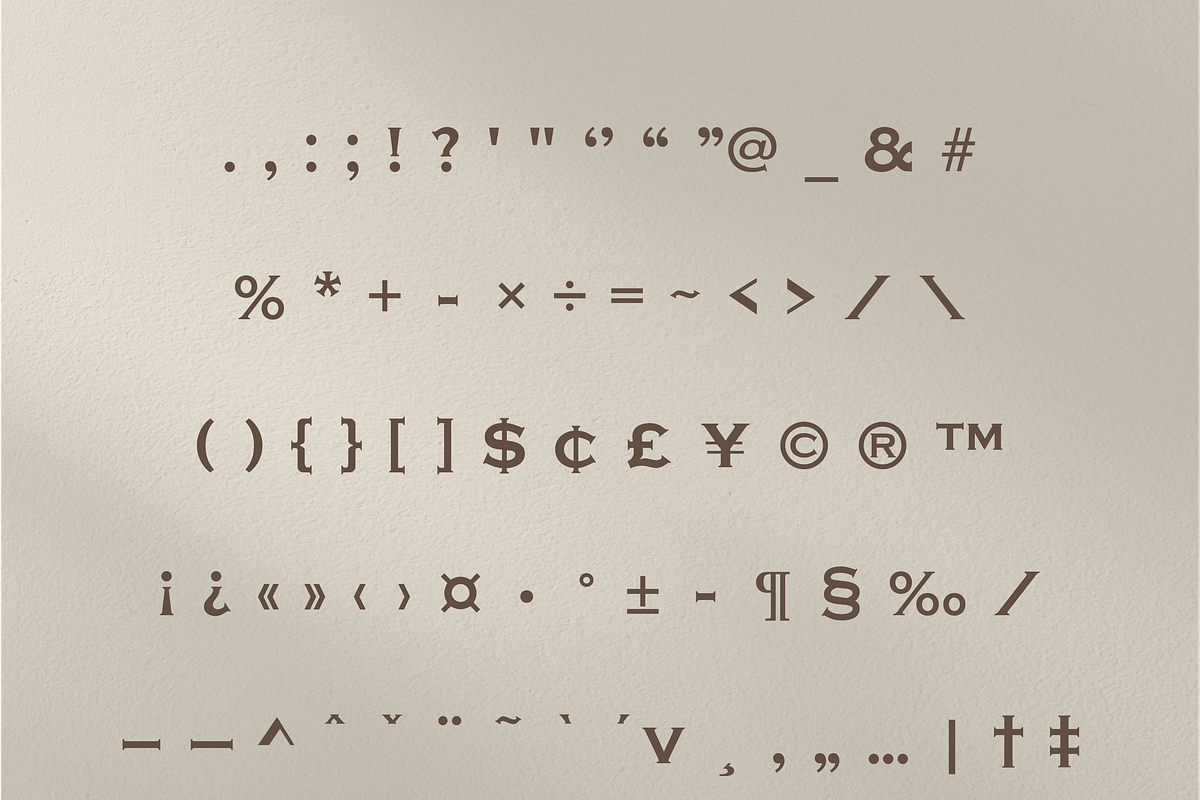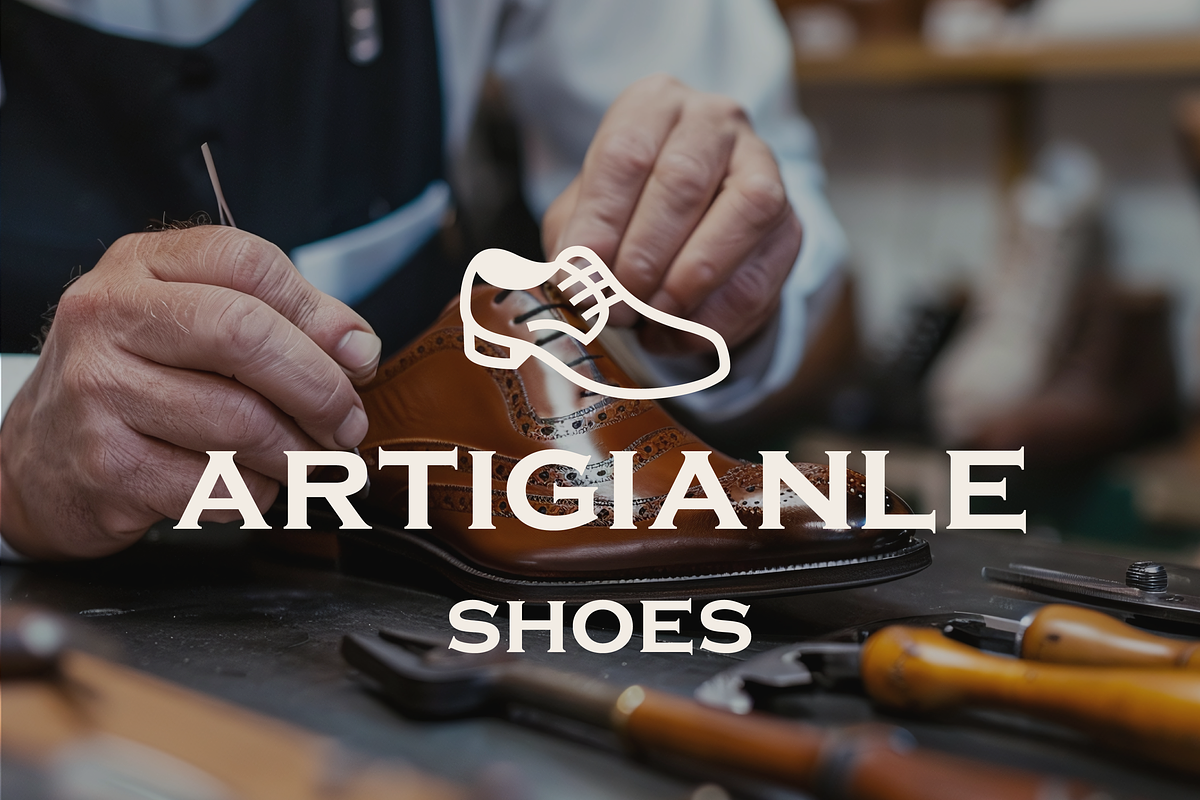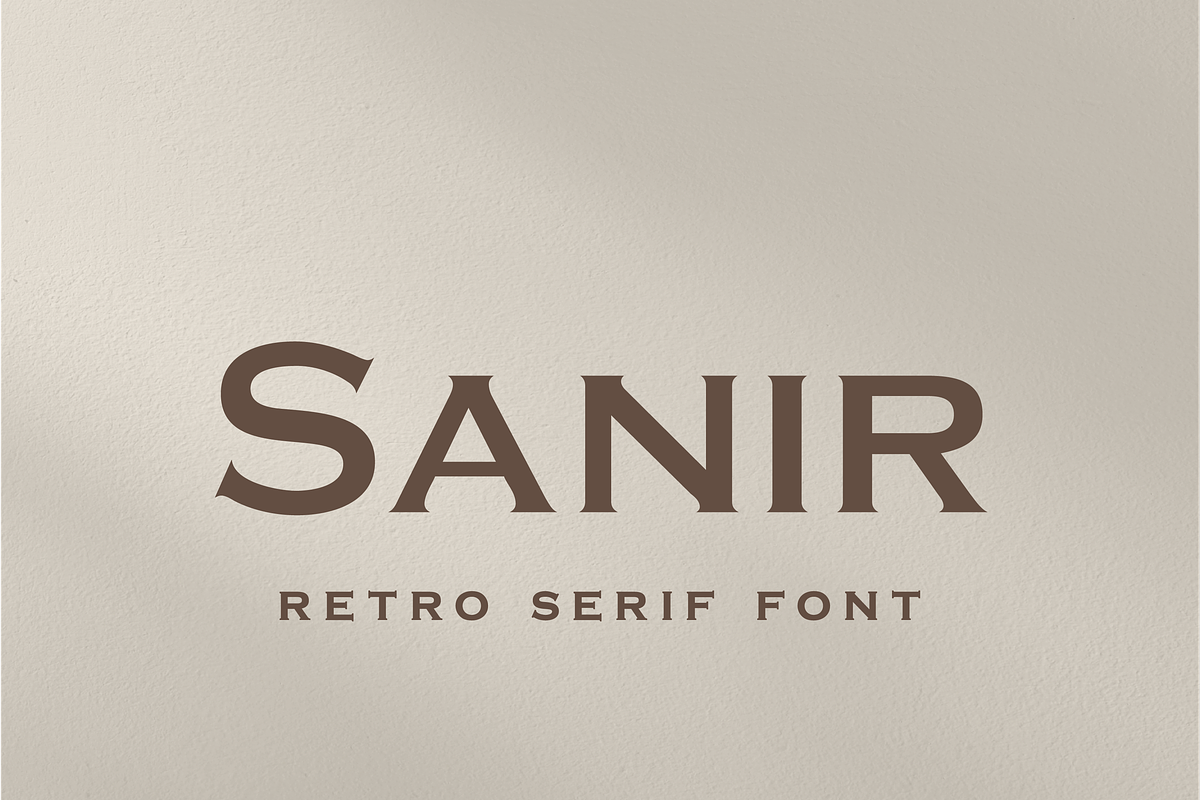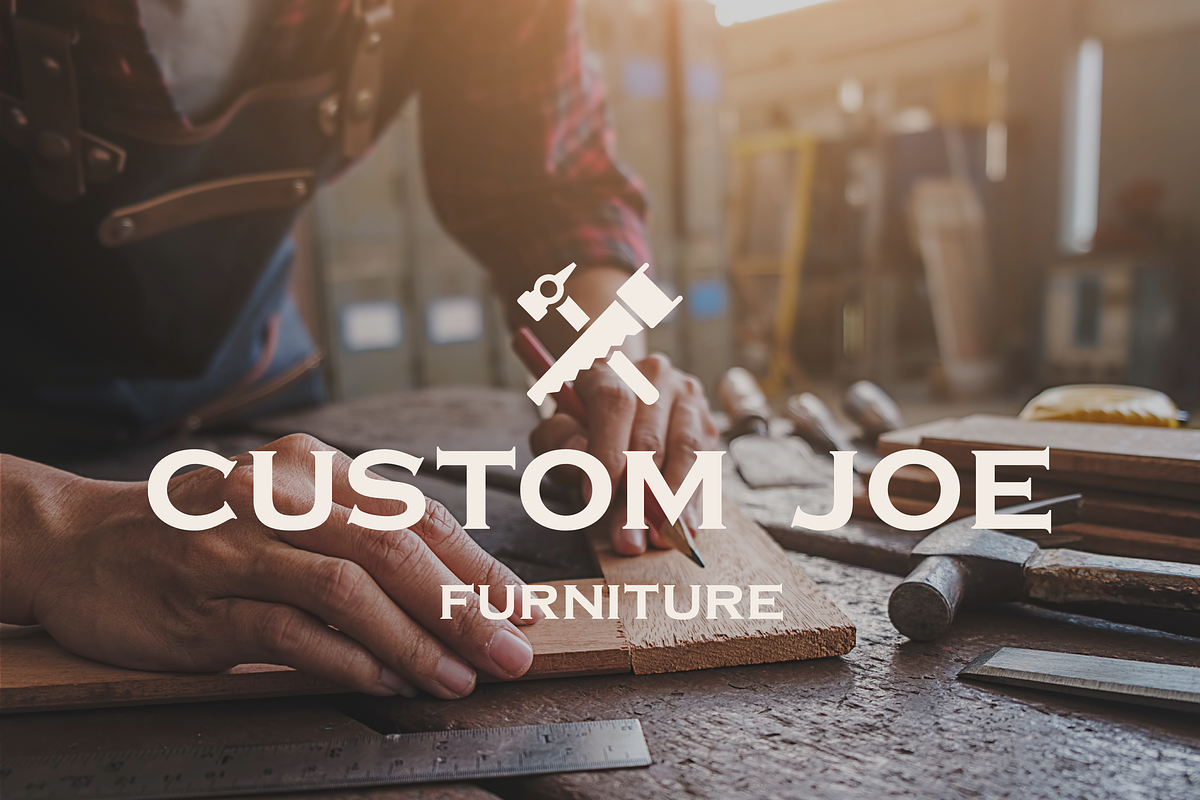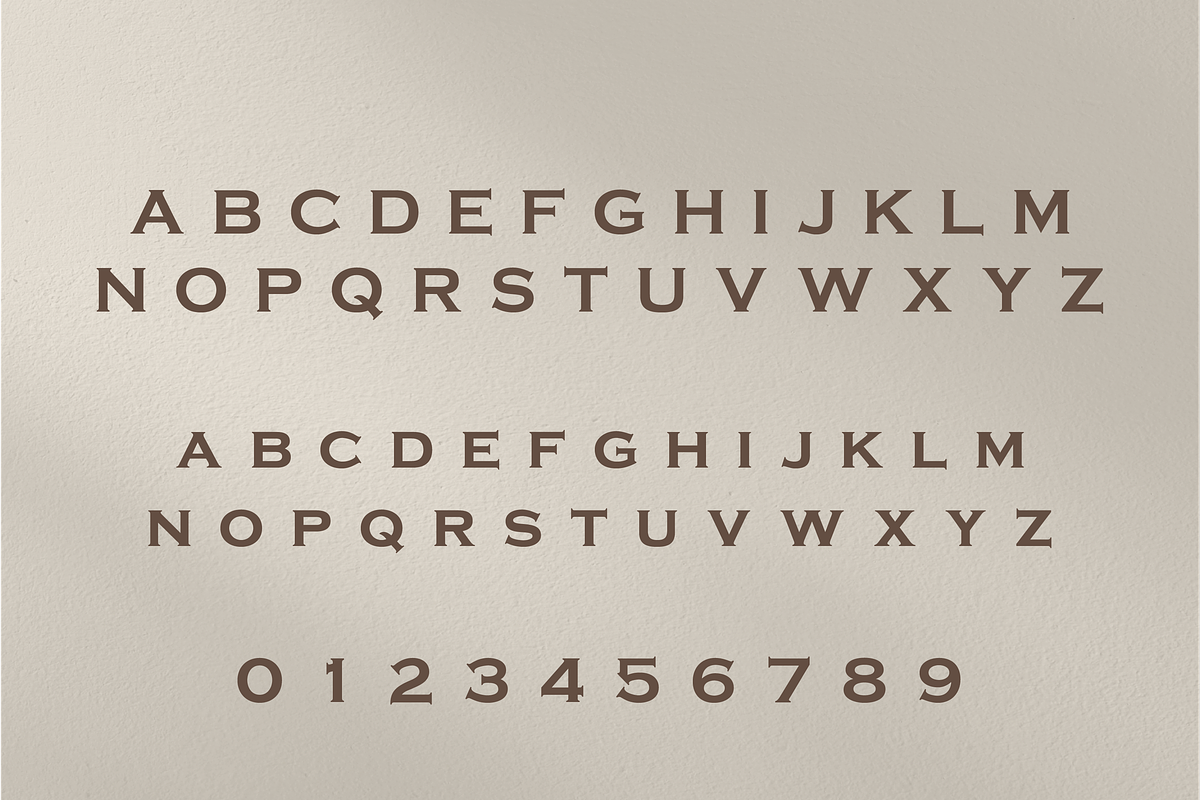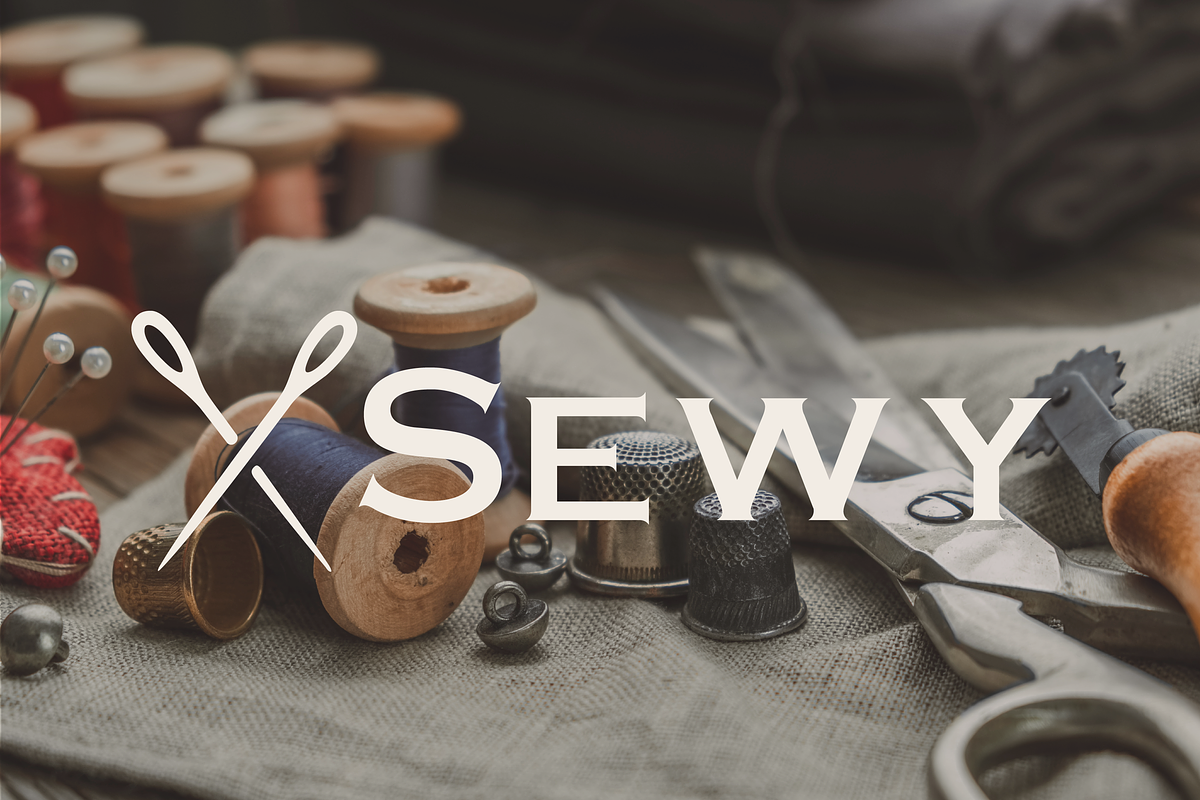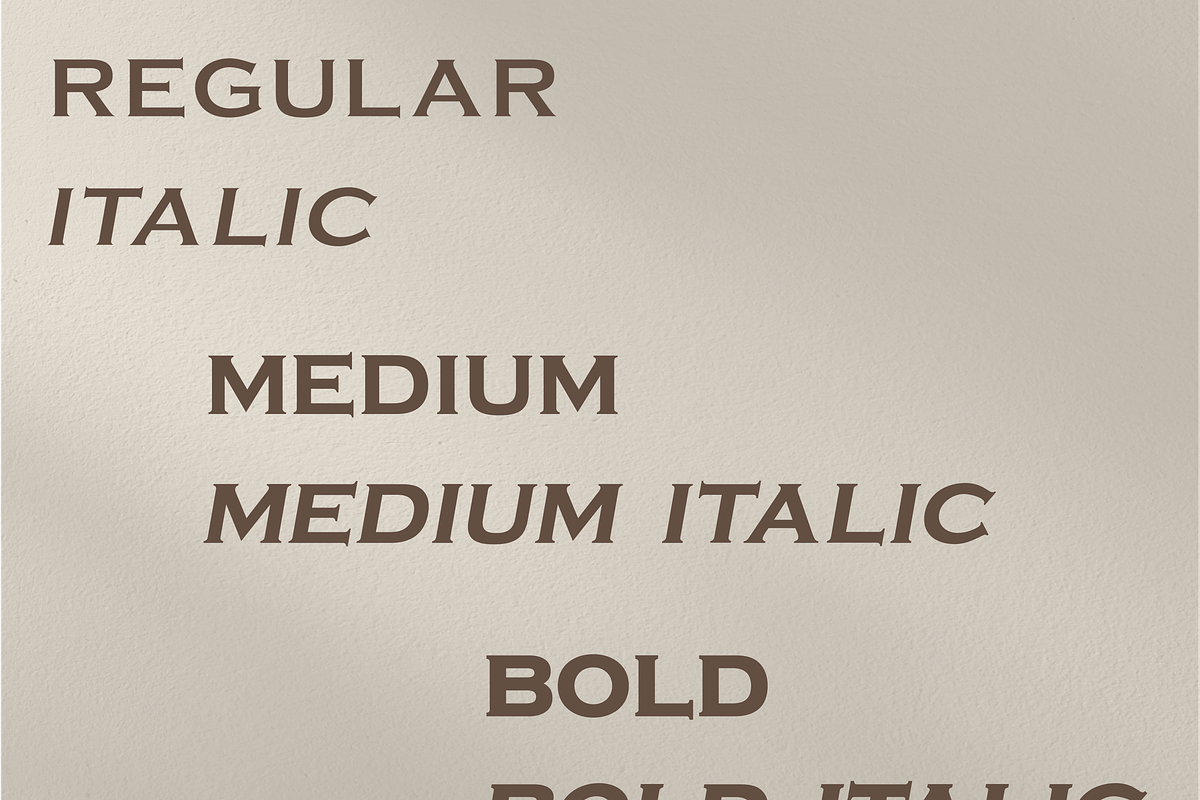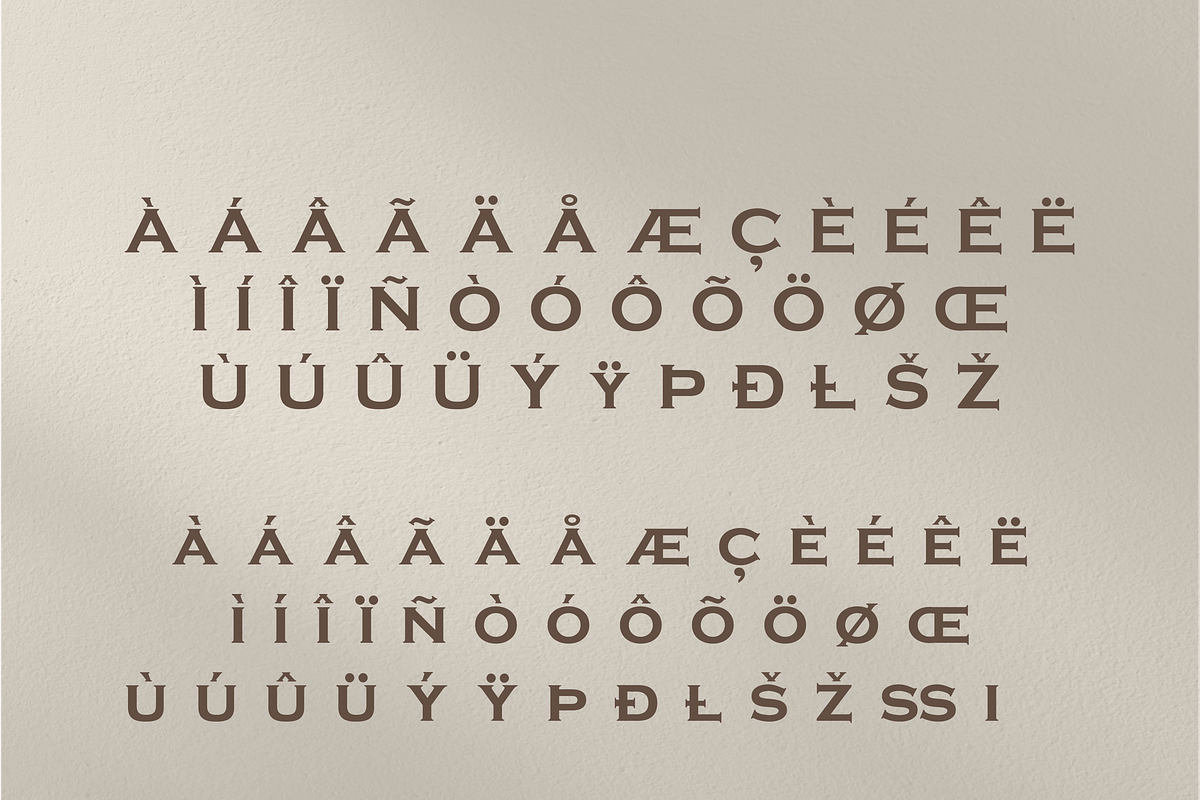
Sanir Retro Serif Font
Sanir – Classic Elegance with a Modern Twist
Sanir is a beautifully crafted serif font that blends timeless sophistication with a contemporary edge. Available in three weights—Regular, Medium, and Bold—plus italics, its graceful curves and clean lines make it an exceptional choice for a wide range of projects.
Sanir isn’t just about style, it’s about making an impact. With its balanced elegance and accessibility, this font ensures your message is delivered with both clarity and sophistication, leaving a lasting impression on any audience.